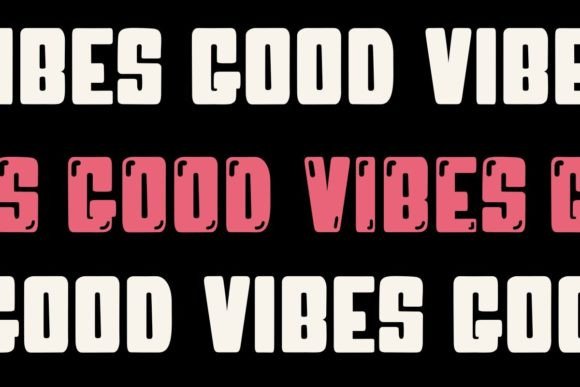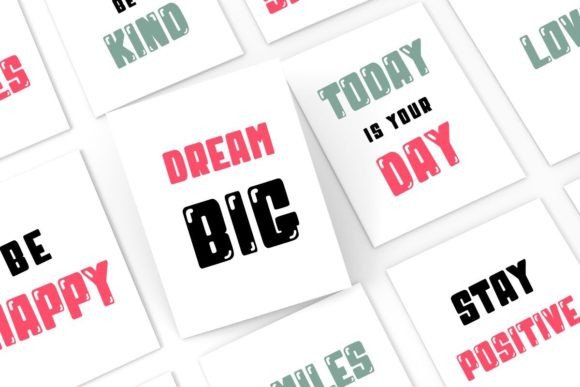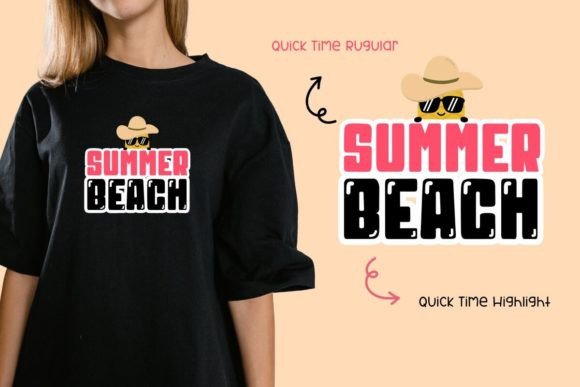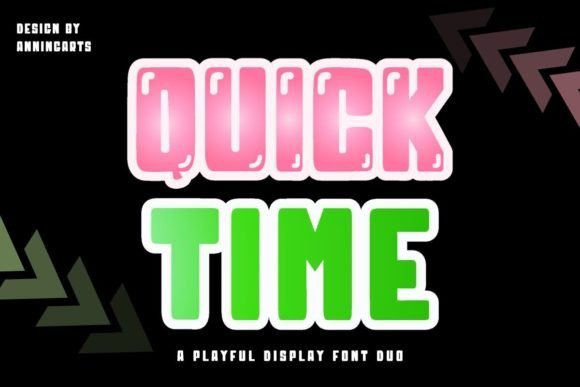
Introduction to Quick Time Font
Quick Time is a playful and vibrant font duo.
( regular and highlight) This font has a cute and quirky style.
Key Features of Quick Time Font
Why Choose Quick Time Font?